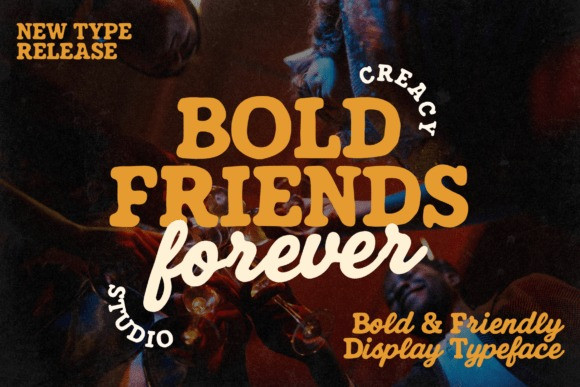
Bold Friends Forever Font
Bold Friends Forever Font Designed with the spirit of unity, confidence, and playful creativity in mind, this font effortlessly unites the glory of vintage typography with the crisp energy of contemporary visuals. A fusion of robust serif and cheerful script, the Bold Friends Forever font embodies a welcoming and flamboyant persona that never fails to demand attention – an ideal choice for brands wishing to exhibit a human, amusing, and unforgettable identity.
Channeling a rich vintage aesthetic coupled with a modern twist, Bold Friends Forever shines brightly and imparts a delightfully friendly tone. It weaves together a vigorous serif with an expressive script, resulting in a unique typography that’s both effortlessly legible and instantly memorable. Prepared meticulously for dynamic, lifestyle-oriented visuals, this typeface serves as the perfect brew for branding, logos, fashion, lifestyle projects, cafes, creative studios, posters, editorials, headlines, packaging, merchandise, and digital content.
Equipped with both uppercase and lowercase letters, numerals, punctuation, and essential multilingual support, Bold Friends Forever extends an inclusive welcome to international projects and audiences. Ensuring a fresh and balanced display aesthetic, it is optimized for excellent performance, be it print or digital media. This versatile typeface pack (available in OTF & TTF formats) is ready to use across all major design applications.
Bold Friends Forever – where bold meets friendly, playful, intertwines with vintage, and expression finds its voice. Experience the joy of a display font that combines the best of two typography worlds.